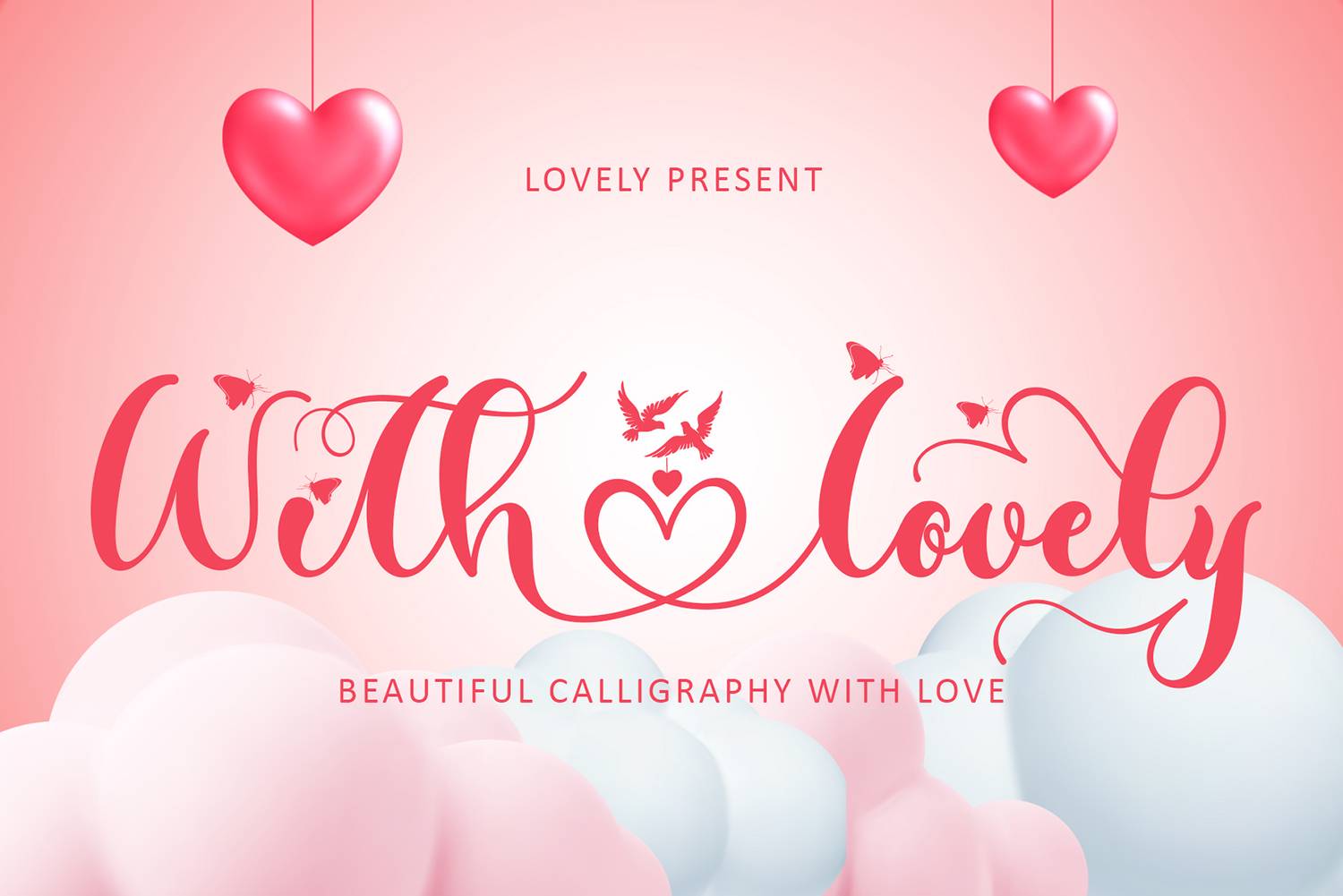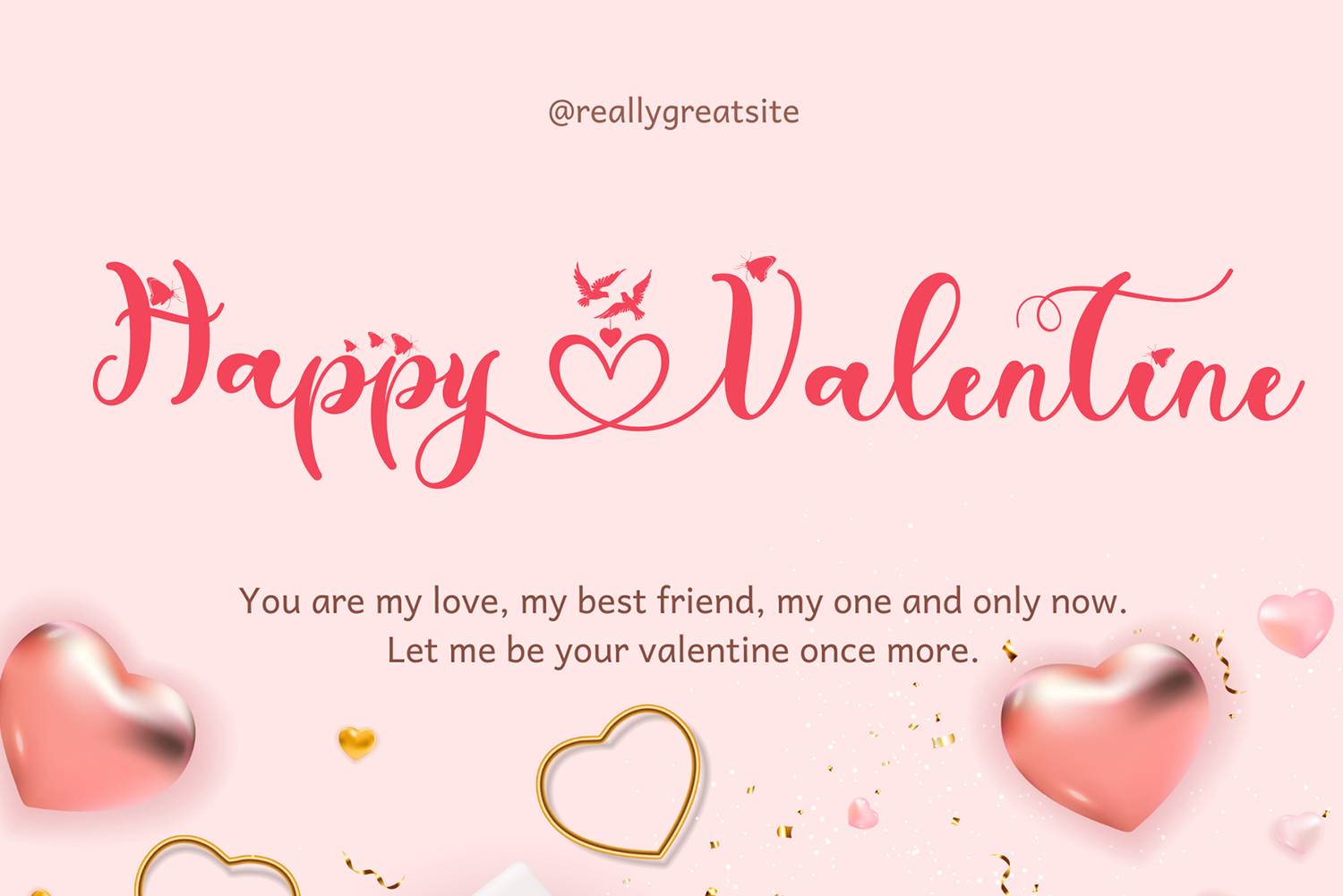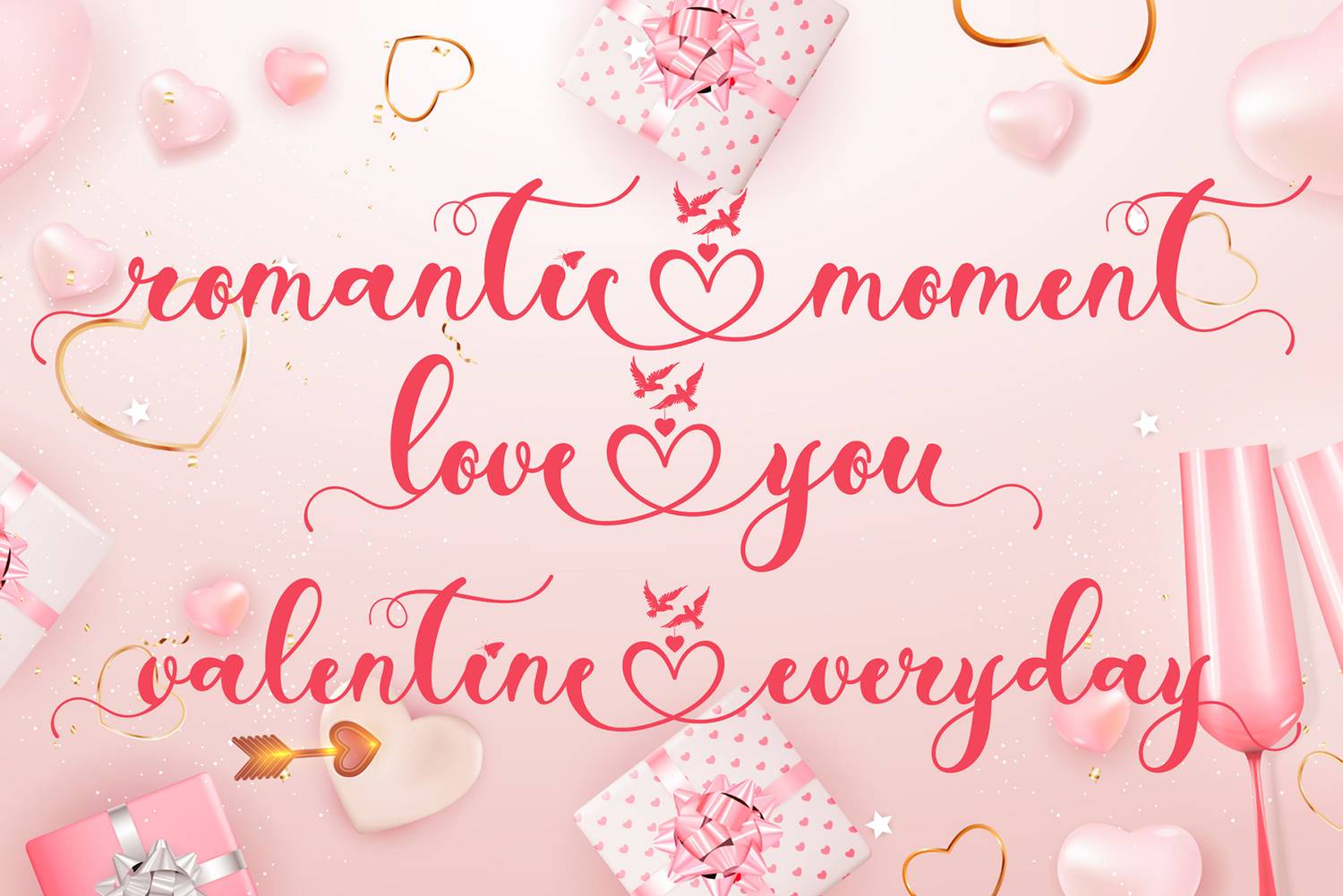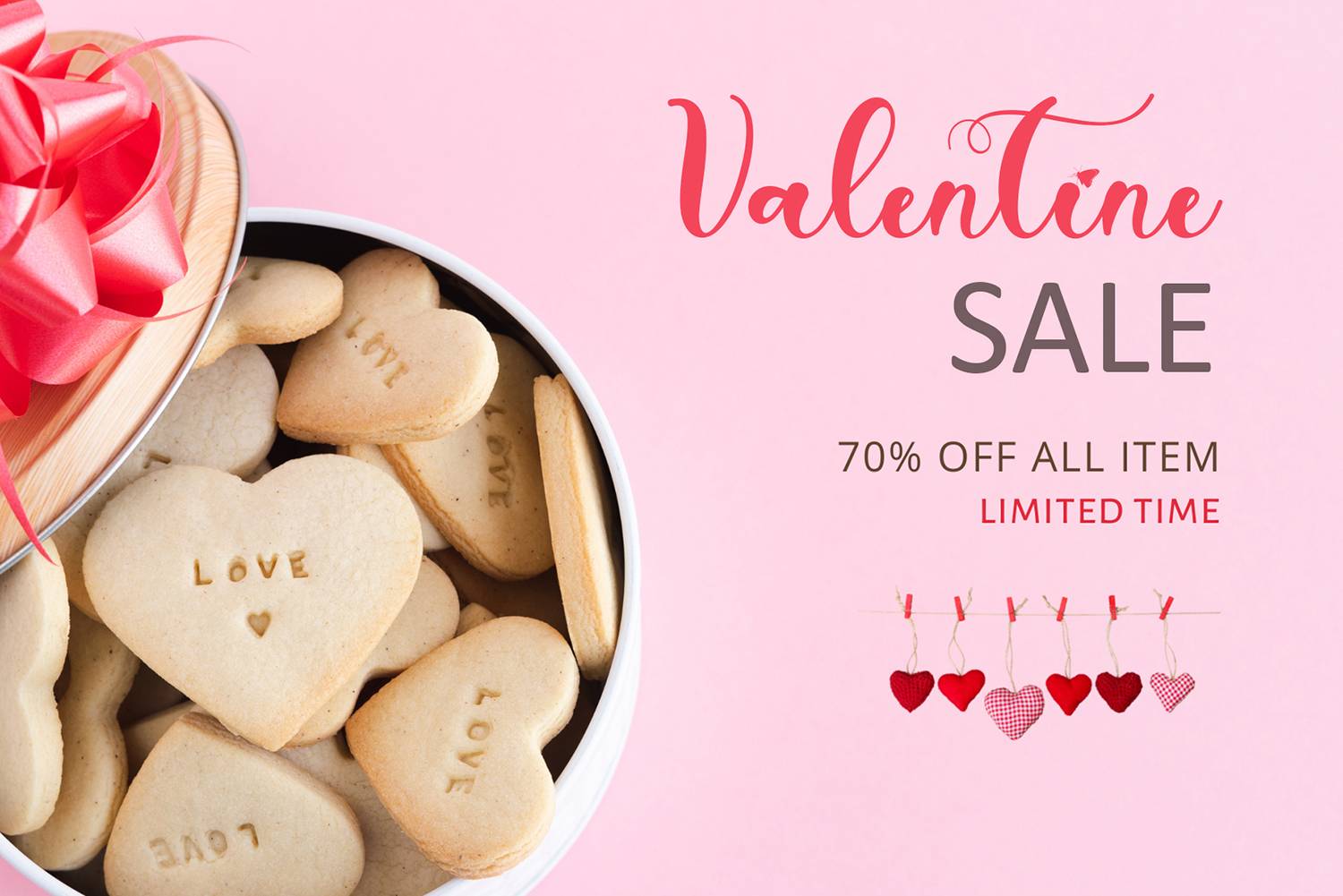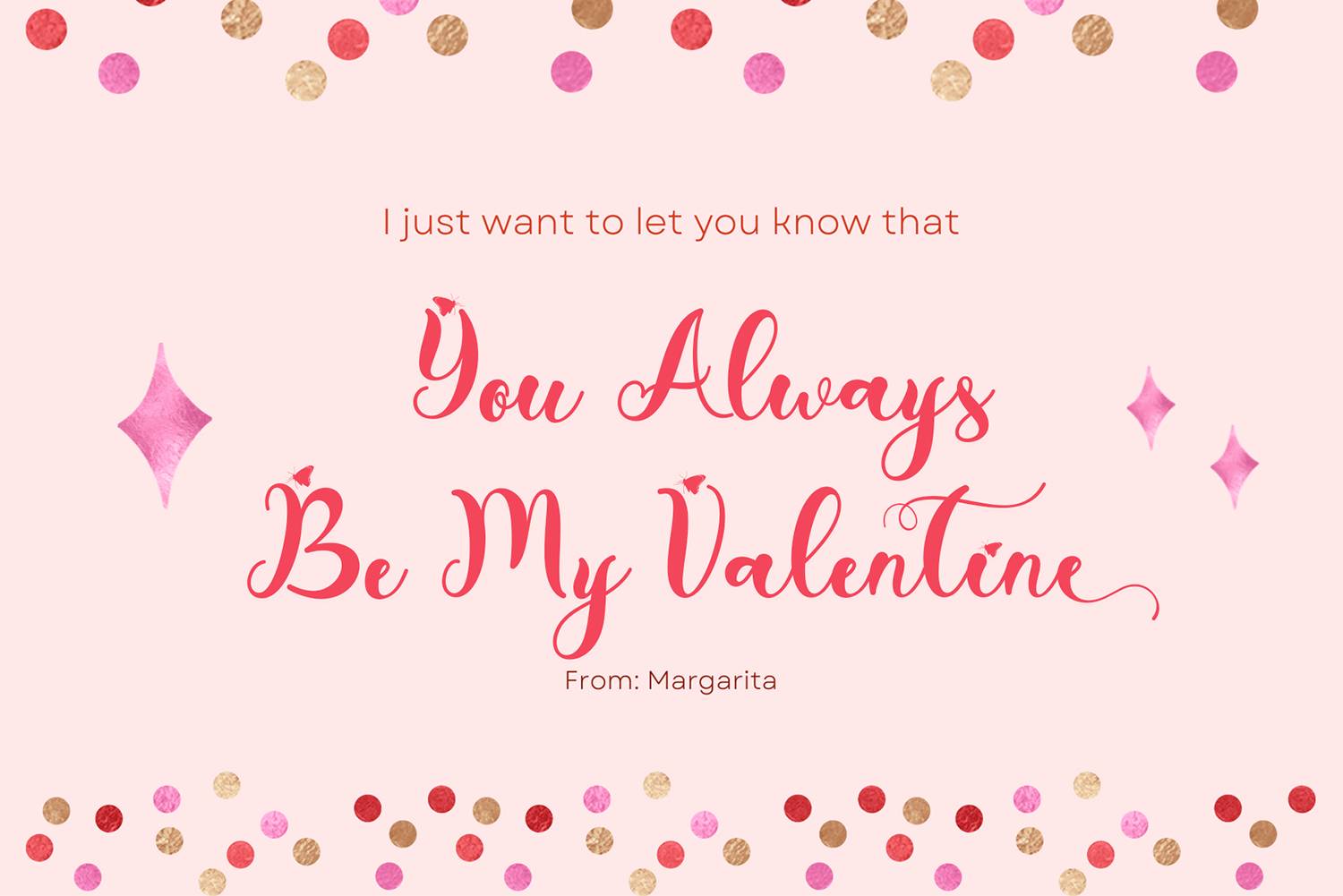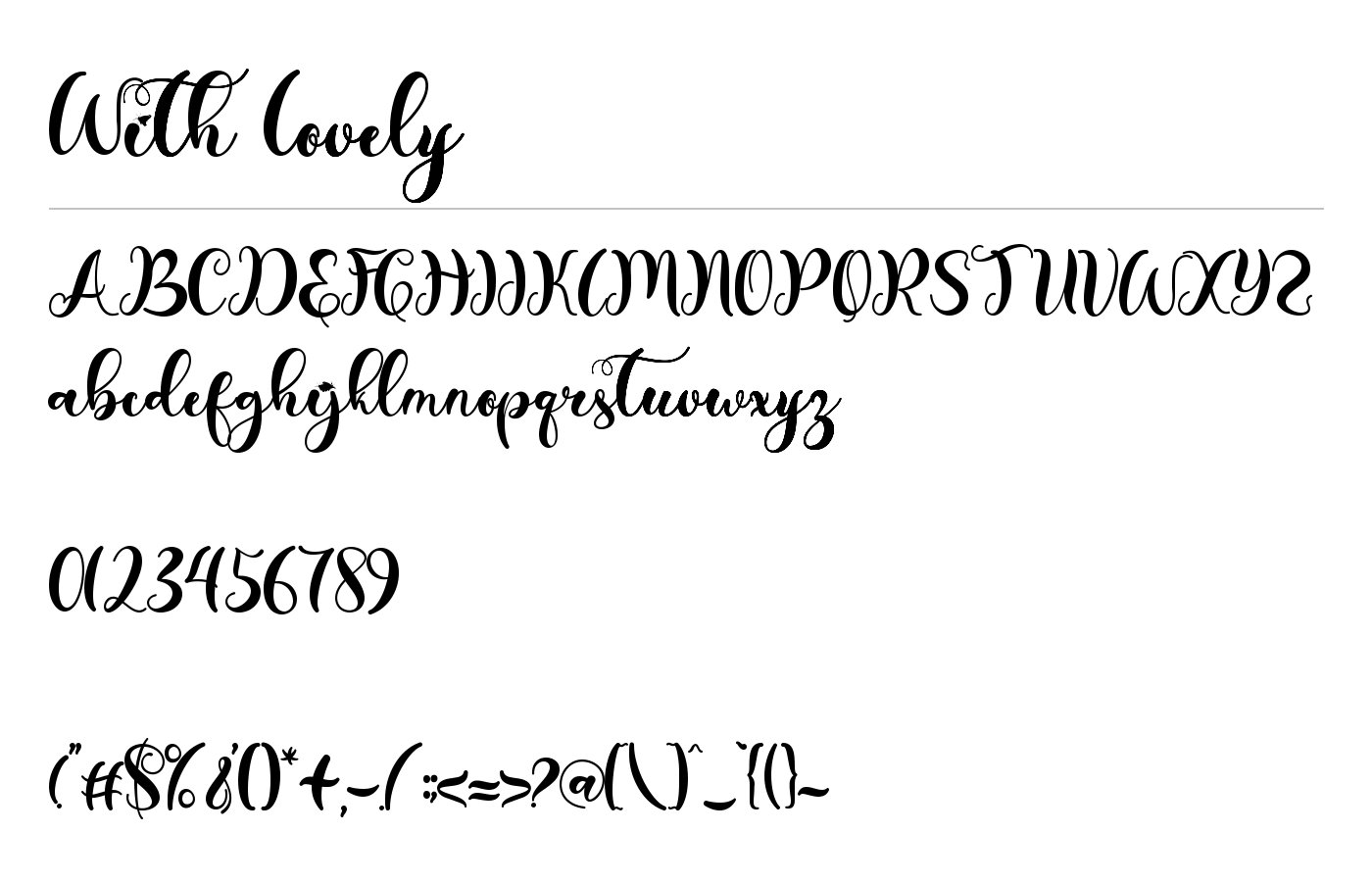
With Lovely Font is a decorative script typeface characterized by elegant, flowing letterforms with charming swirls and flourishes that convey a romantic and playful mood. Its medium weight and balanced contrast make it ideal for adding a warm, handcrafted feel to invitations, branding, and headlines where a unique, stylish touch is desired. Perfect for fashion, weddings, and feminine design projects, this font brings sophistication and personality to any creative work.
With Lovely Font
About With Lovely Font
| Font family | With Lovely Font |
| Designer | Yoga Letter 2022 (Isroni Yoga Prasetya) |